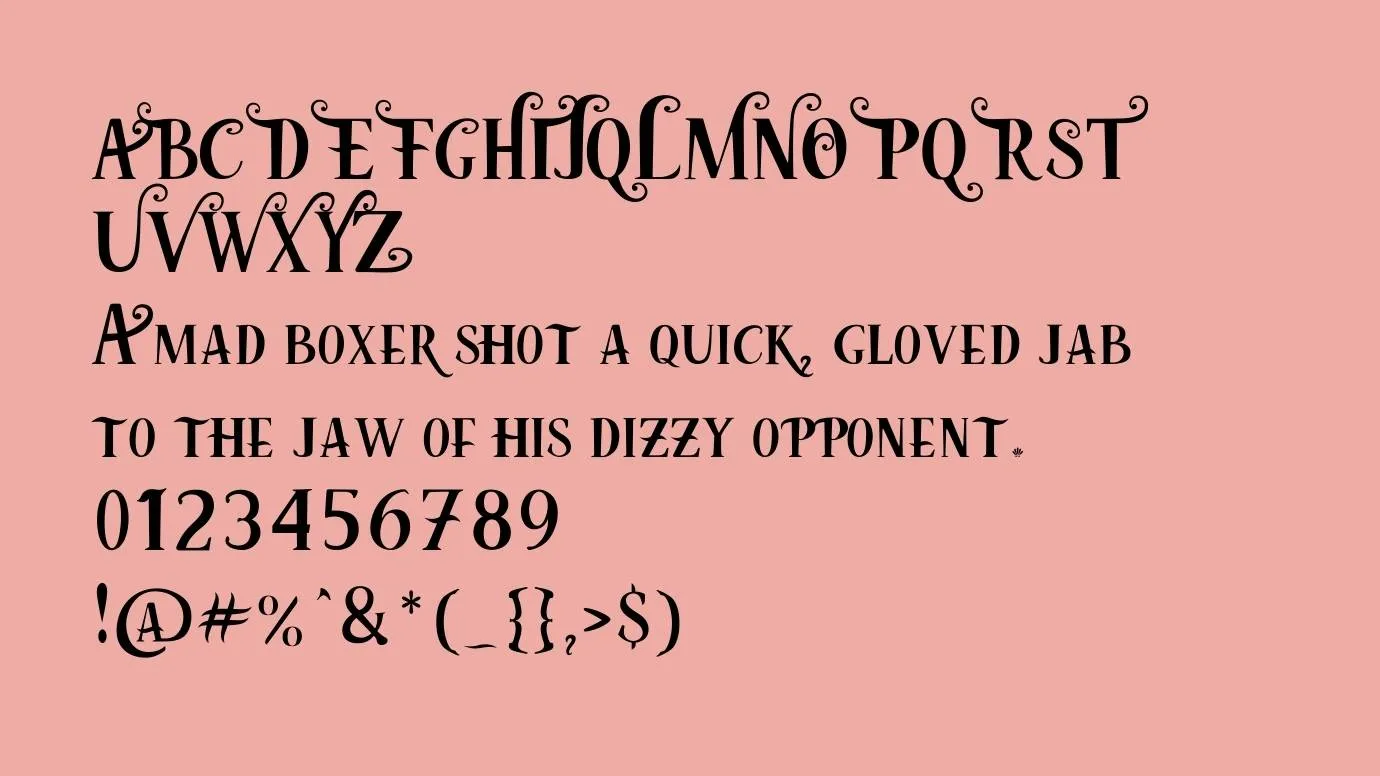
The Little Mermaid Font is inspired by the famous movie title The Little Mermaid. This movie is an American cartoon fantasy film directed by Ron Clements and John Musker, and released by Walt Disney. The film was released on November 17, 1989.
The letterings of this movie font are very similar to this font. This font was released with the Opentype feature that is very suitable and is compatible with all kinds of devices such as PC, Mac, Linux, and many others. That font comes with 150 different beautiful characters and is the first choice of many designers all around the World. Pirate Font is the closest similar to this typeface. This font includes 92 unique glyphs and is very suitable for all kinds of personal and commercial projects.
Creator of Little Mermaid Font
This is a stylish display typeface that was designed by Kustren based on an American Cartoon Movie named The little Mermaid and released this font for public use on 6 January and 2014.
This font family comes with a single-weight style including Little Mermaid Regular. This font family includes 150 different stylish characters and 92 unique glyphs such as uppercase, lowercase, general punctuation, and many other special characters as well.
View of Little Mermaid Font
| Style | Fancy |
| Designer | Kustren |
What is the closest font to the Little Mermaid font?
There are many fonts similar to this font but Trolls Movie font, and Love & Sweet Massage font are the closest to this typeface.
What kind of font is Little Mermaid Font?
This is a fancy movie logo-based typeface that was designed by Kustren and is released for public use on 6 January and 2014.